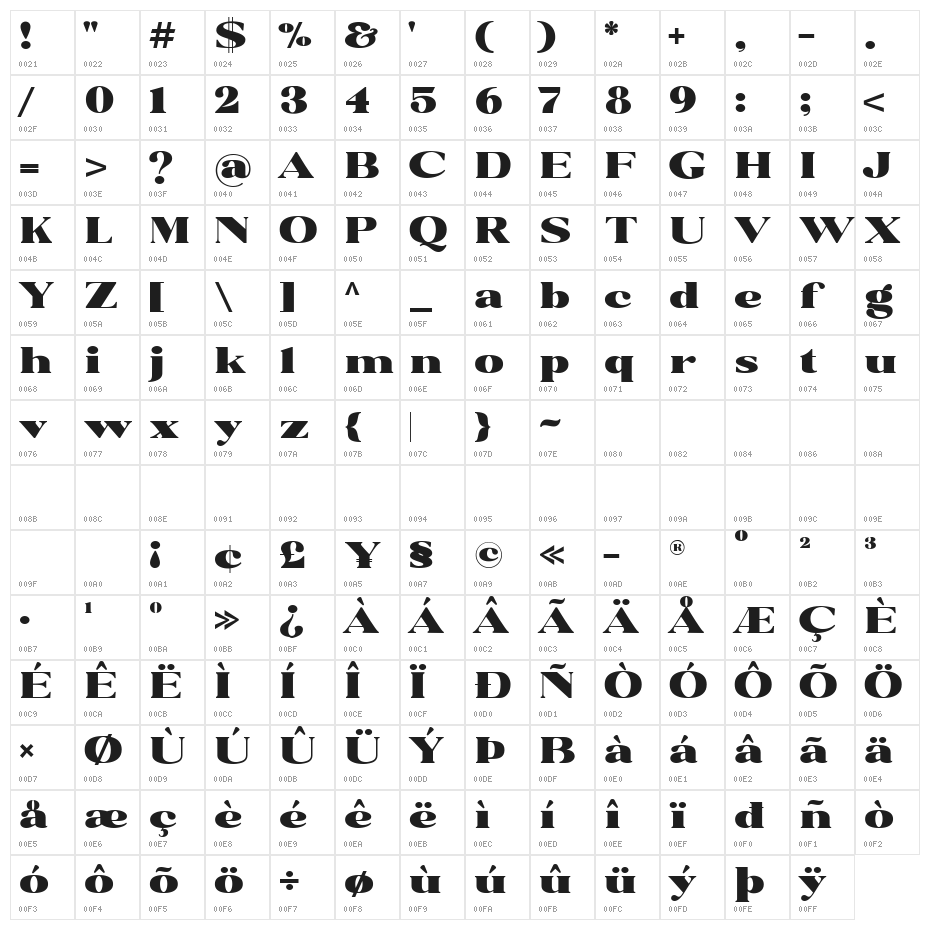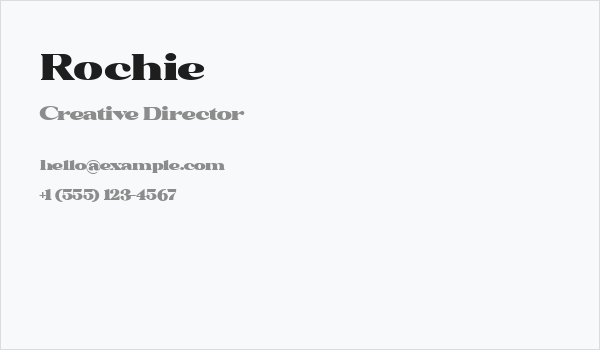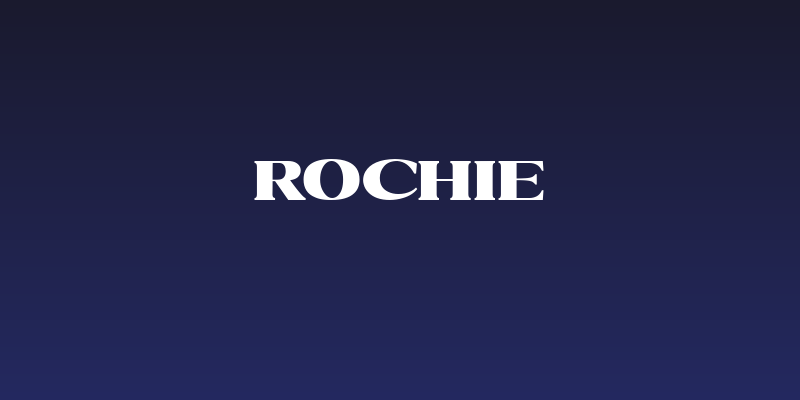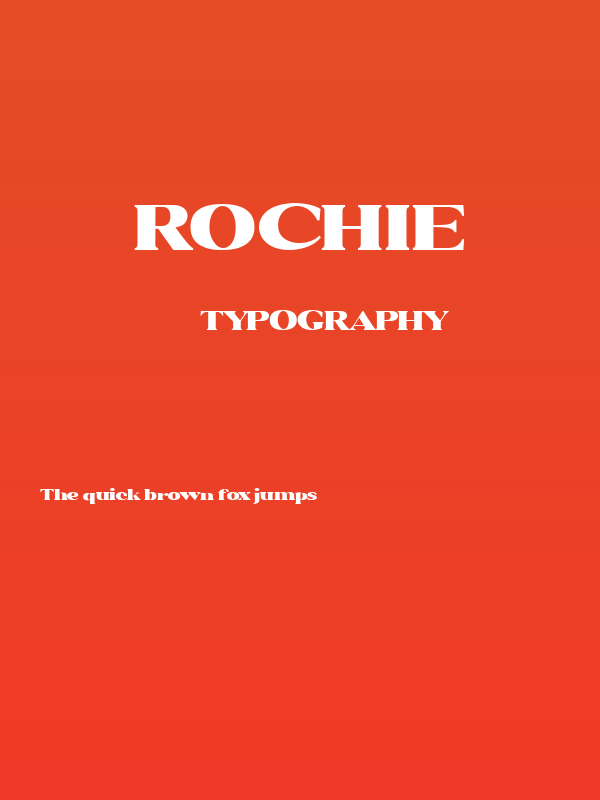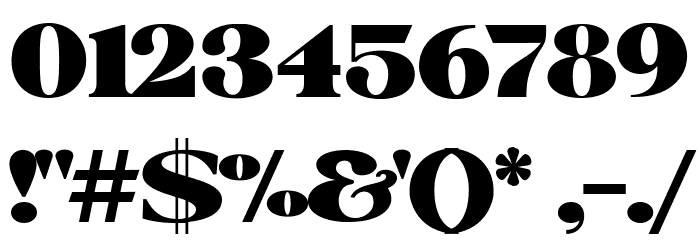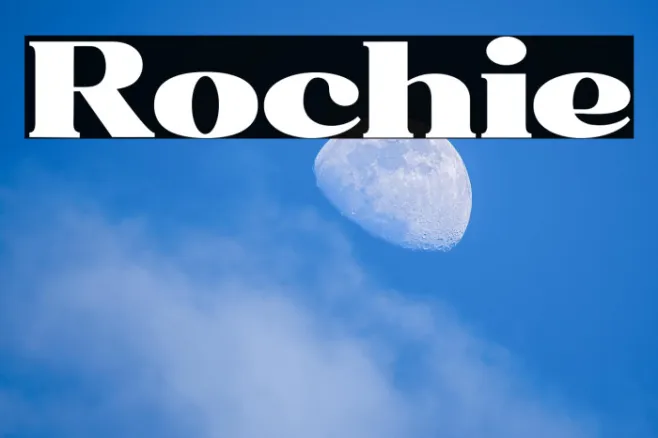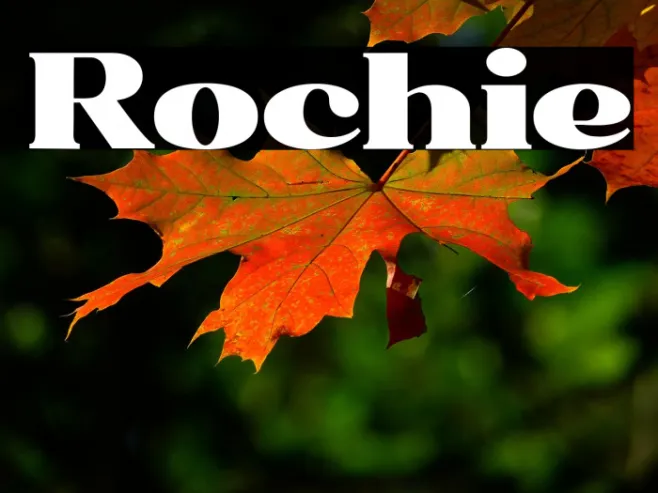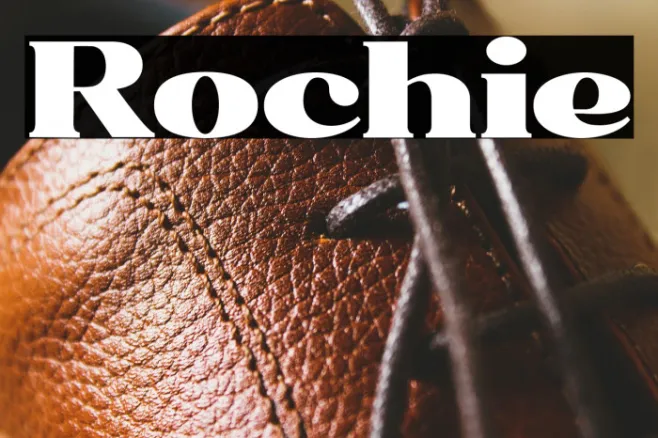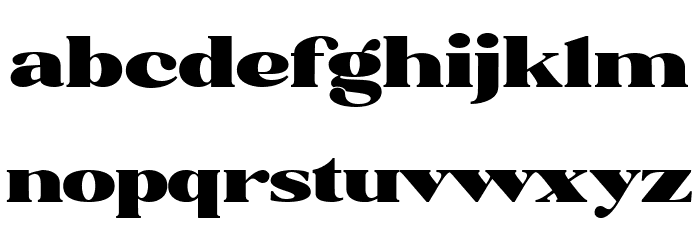
Rochie Font
Rochie Description
This font features a bold and dramatic style with high contrast between thick and thin strokes, giving it a strong visual impact. The serifs are pronounced and sharp, adding a touch of elegance and sophistication. The uppercase letters are particularly striking, with a commanding presence that makes them ideal for headlines and titles. The lowercase letters maintain the same boldness, ensuring consistency across text. The numerals are equally bold, making them stand out effectively. Special characters are designed with the same attention to detail, ensuring they integrate seamlessly with the rest of the font.
| Proposed Projects | Ideal for editorial design, branding, advertising, and any project requiring a strong, elegant typeface. |